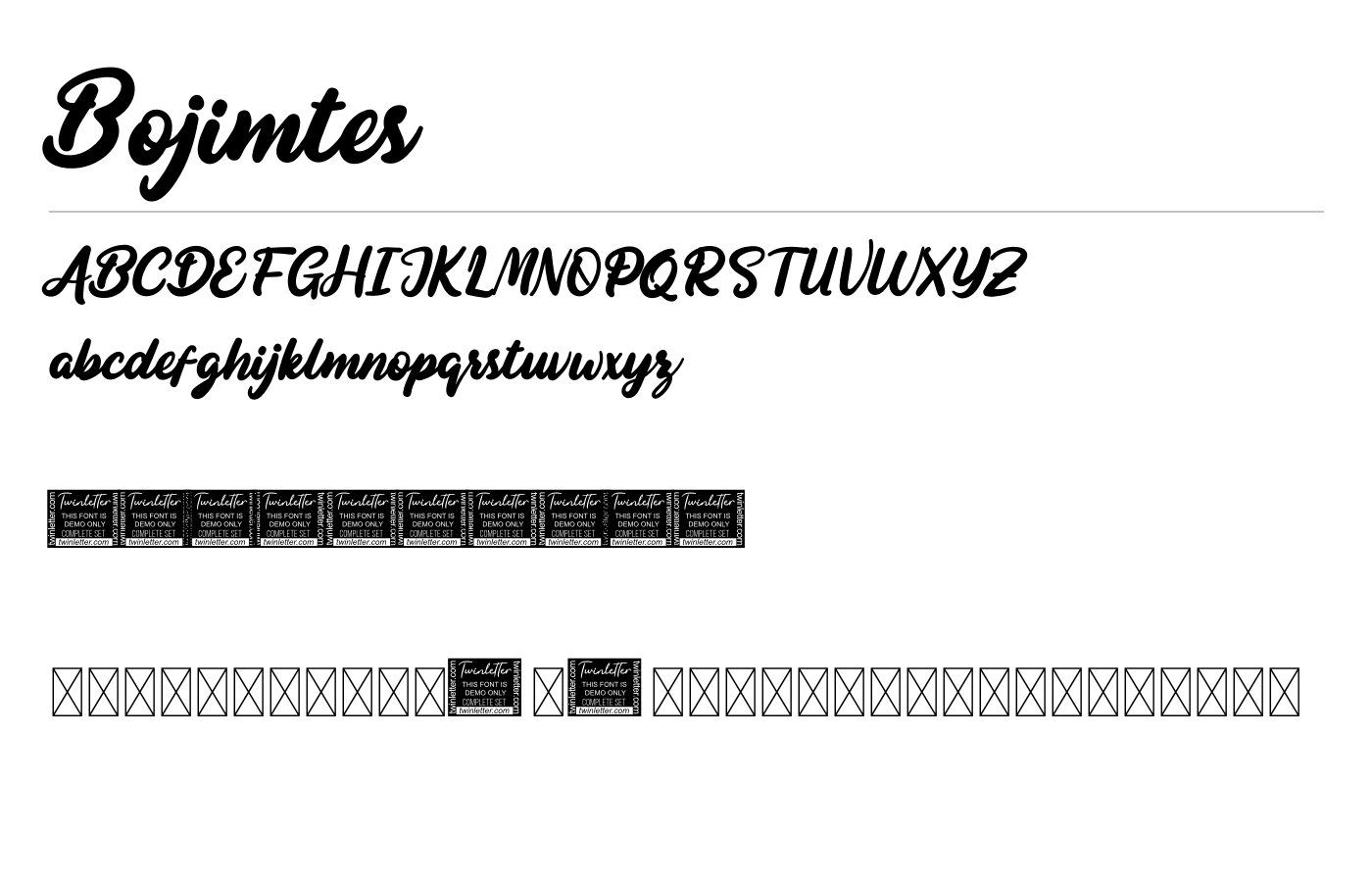
Bojimtes is a bold and lively script font with a smooth, rounded style that feels friendly and informal. Its connected, flowing letterforms with moderate contrast give it a dynamic yet approachable personality, making it perfect for eye-catching headlines, logos, and branding that aim to convey warmth and creativity. This font works well on packaging, posters, and social media where a personal, hand-lettered touch adds charm and energy.
Bojimtes Font
About Bojimtes Font
| Font family | Bojimtes Font |